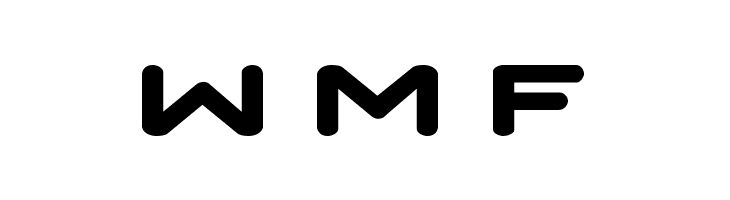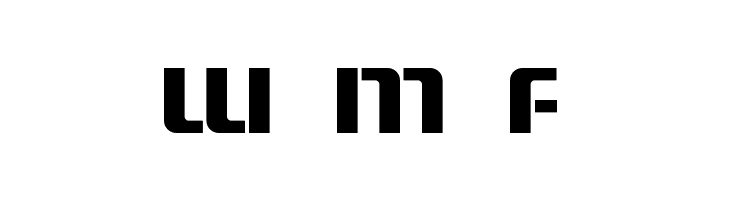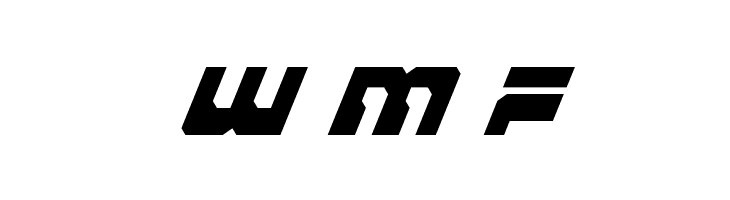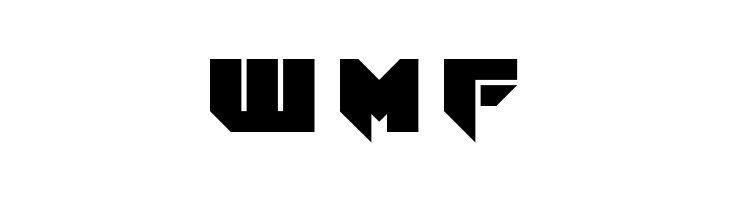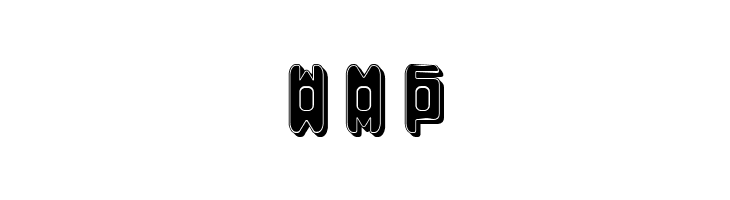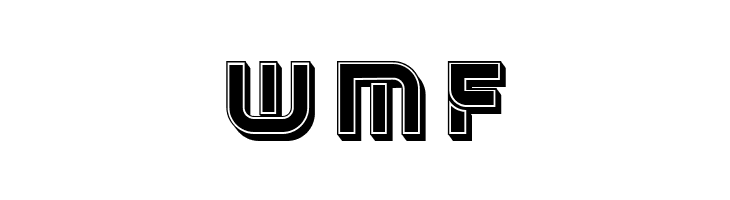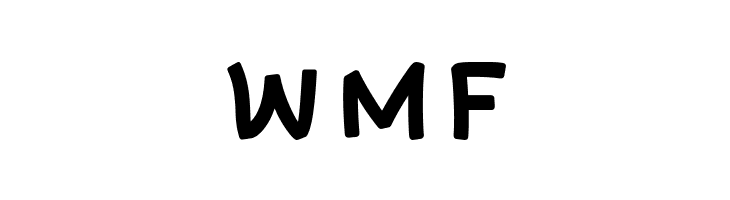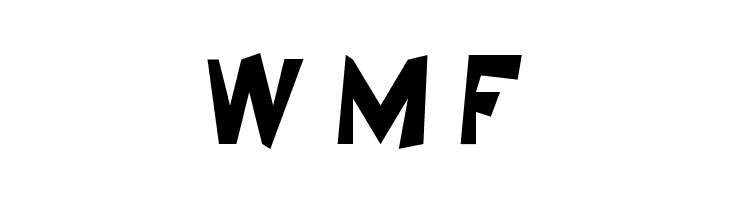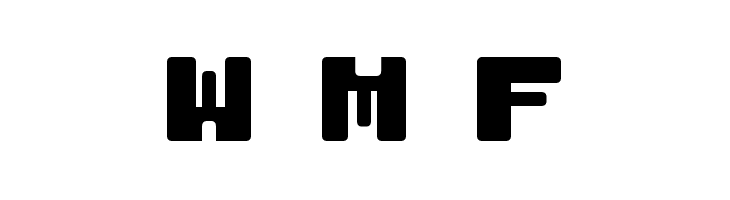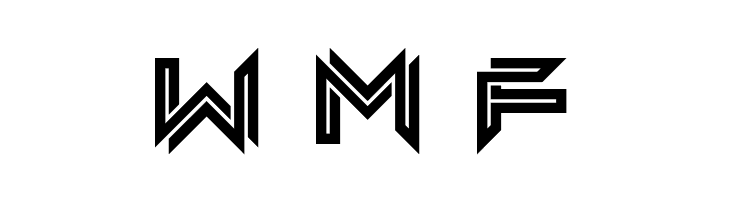
A sleek, modern italic font with geometric lines and a futuristic feel.
A bold, futuristic font with rounded edges and expanded width.
A bold, geometric font with a modern, tech-inspired design.
A modern, geometric outline font with a semi-italic slant.
A futuristic, circuit-inspired font with a condensed and italic style.
A futuristic, geometric font with a neon circuit-inspired design and italic style.
A futuristic, geometric font inspired by neon lights and circuit patterns.
A futuristic, geometric font with expanded width and angular shapes.
A bold, italicized font with a futuristic and angular design.
A bold, geometric outline font with a futuristic and technical style.
A bold, playful font with rounded edges and a semi-italic slant.
A bold, playful, and condensed font with rounded edges.
A bold, geometric font with angular, futuristic design elements.
A bold, angular font with sharp edges and a futuristic design.
A bold, rugged font with a hand-chiseled, ancient inscription style.
A bold, three-dimensional font with a strong shadow effect and rounded rectangular shapes.
A bold, geometric font with a modern, futuristic aesthetic.
A bold, geometric font with a futuristic, three-dimensional look.
A bold, geometric font with a three-dimensional, layered effect.
A playful, bold font with rounded edges and a hand-drawn feel.
A bold, modern font with a unique distressed effect on each character.
A bold, tech-inspired font with characters displayed on stylized laptop keys.
A modern, geometric font with a futuristic and sleek design.
A bold, semi-condensed font with a geometric and angular design.
A bold, geometric font with rounded edges and strong legibility.
A bold, angular font with a modern and edgy style, perfect for impactful designs.
A geometric, angular font with a modern and technical appearance.
A bold, geometric font with a modern, digital aesthetic.
A rounded stencil font with bold, smooth edges and a modern industrial feel.
A bold, angular font with a futuristic and aggressive design.
A modern, geometric outline font with a unique dash pattern.
A futuristic, geometric font with sharp angles and bold lines.
A futuristic, geometric font with sharp angles and folded line elements.